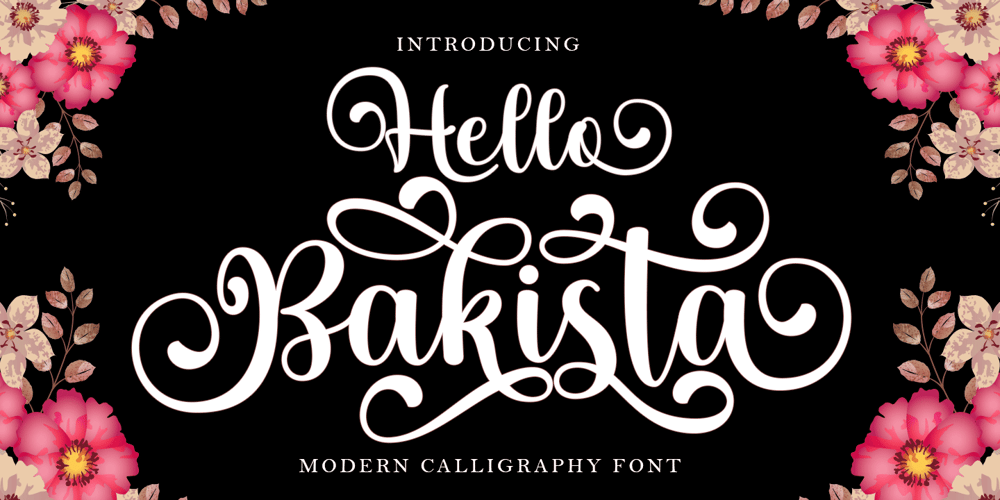
Hello Bakista Script Font Family was designed by Zaki Muhammad and published by madjack.font. Hello Bakista Script contains 1 styles and family package options. Hello Bakista Script is a modern calligraphy font featuring a varied baseline, smooth lines, a classic and elegant touch. Can be used for various purposes such as headings, signatures, logos, wedding invitations, t-shirts, letterheads, signage, labels, news, posters, badges etc.I created this Hello Bakista Font inspired by classic calligraphy concepts and made it into a modern style, and I also added some really interesting binders and alternatives when we applied them. I also tried to execute in a different way so that it resulted in this Bela Yasmine Script font.To enable the OpenType Stylistic alternative, you need a program that supports OpenType features such as Adobe Illustrator CS, Adobe Indesign & CorelDraw X6-X7, Microsoft Word 2010 or a later version.Thank you,